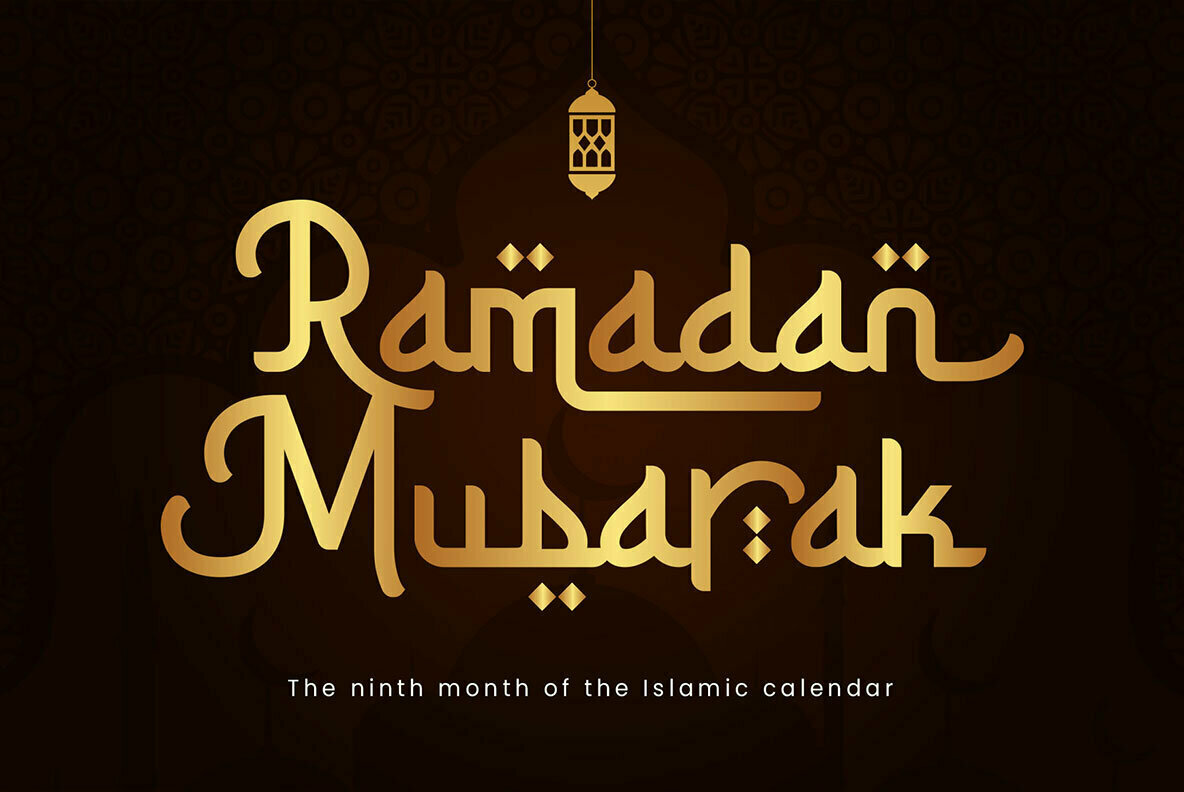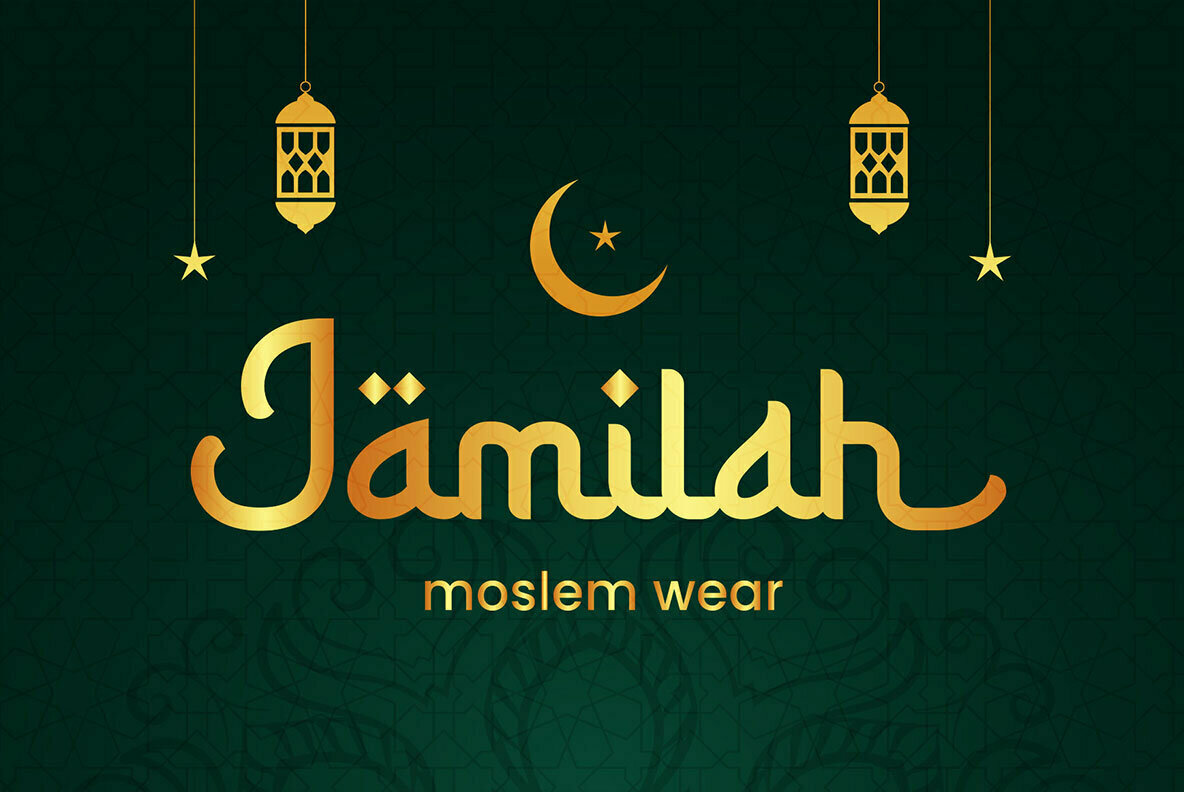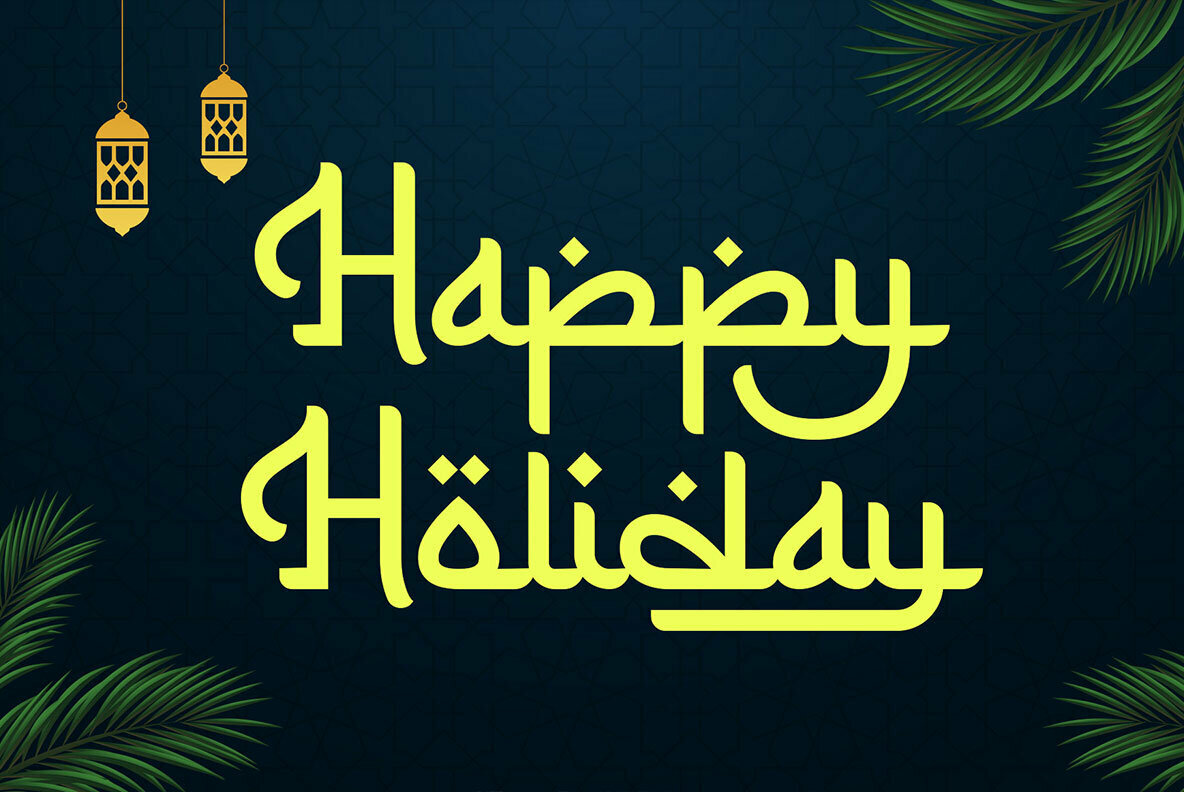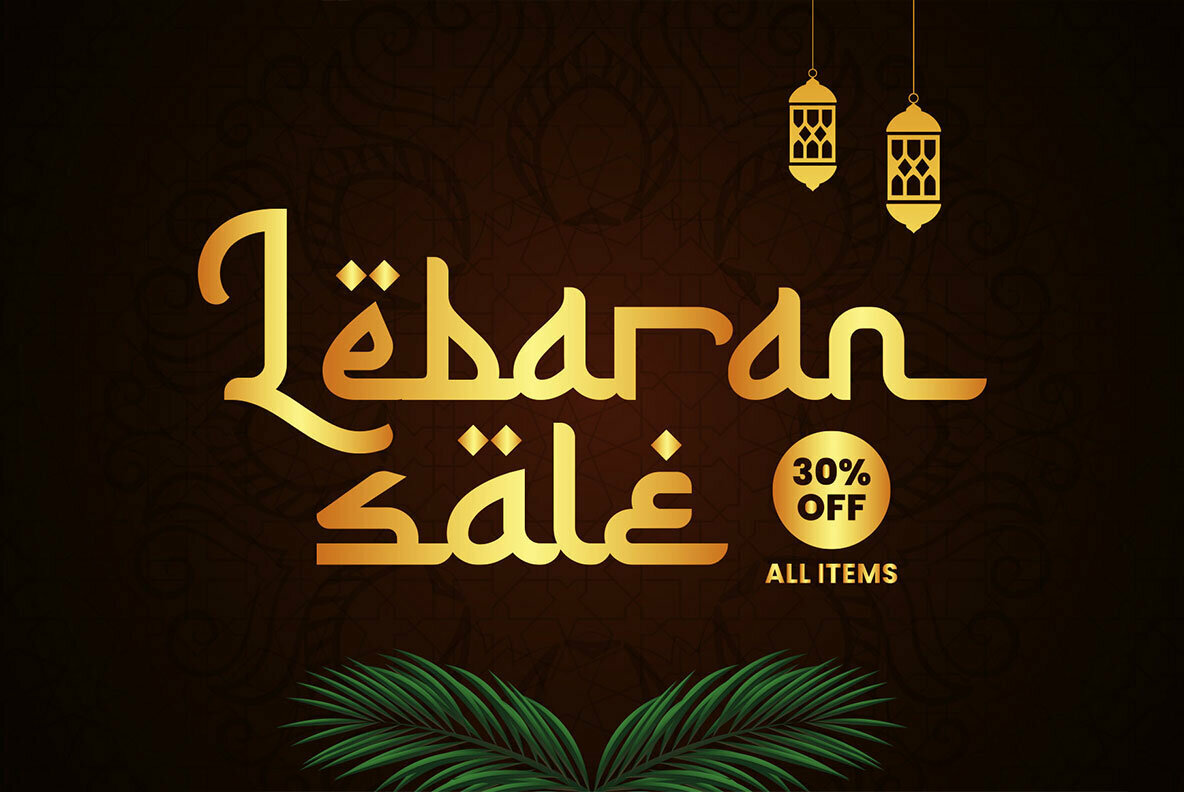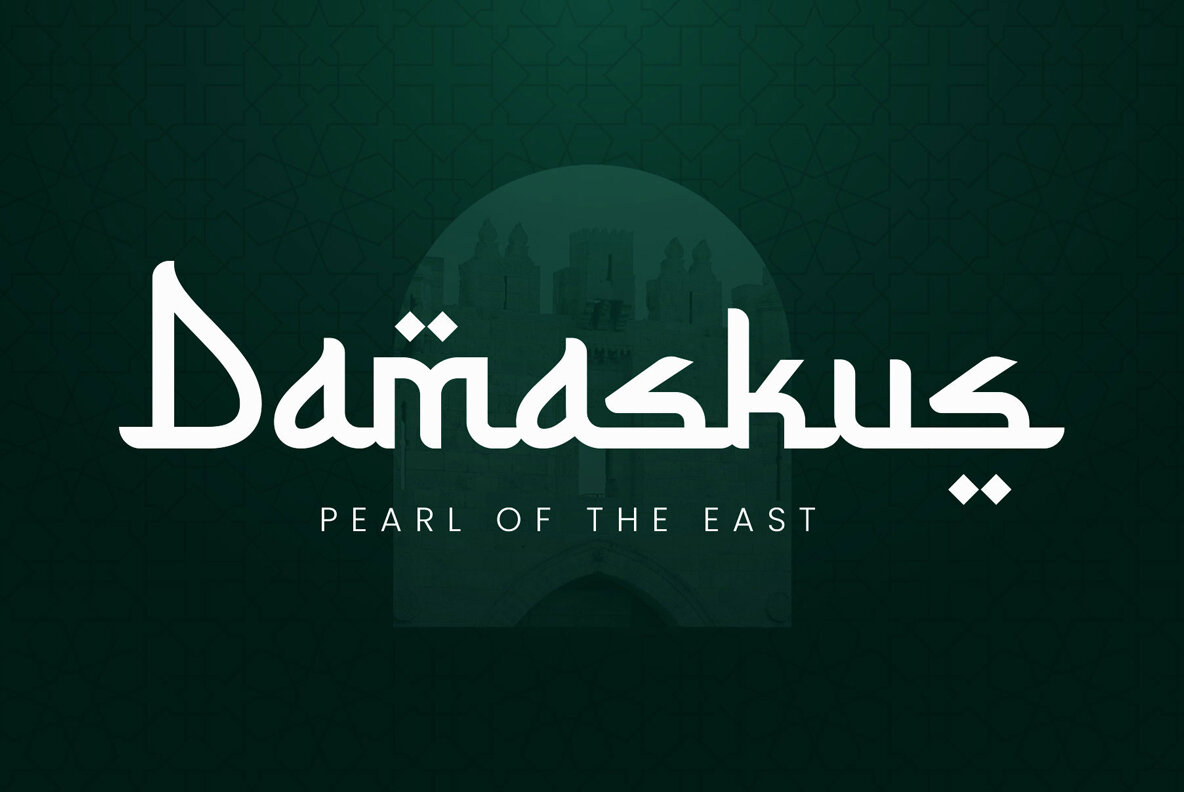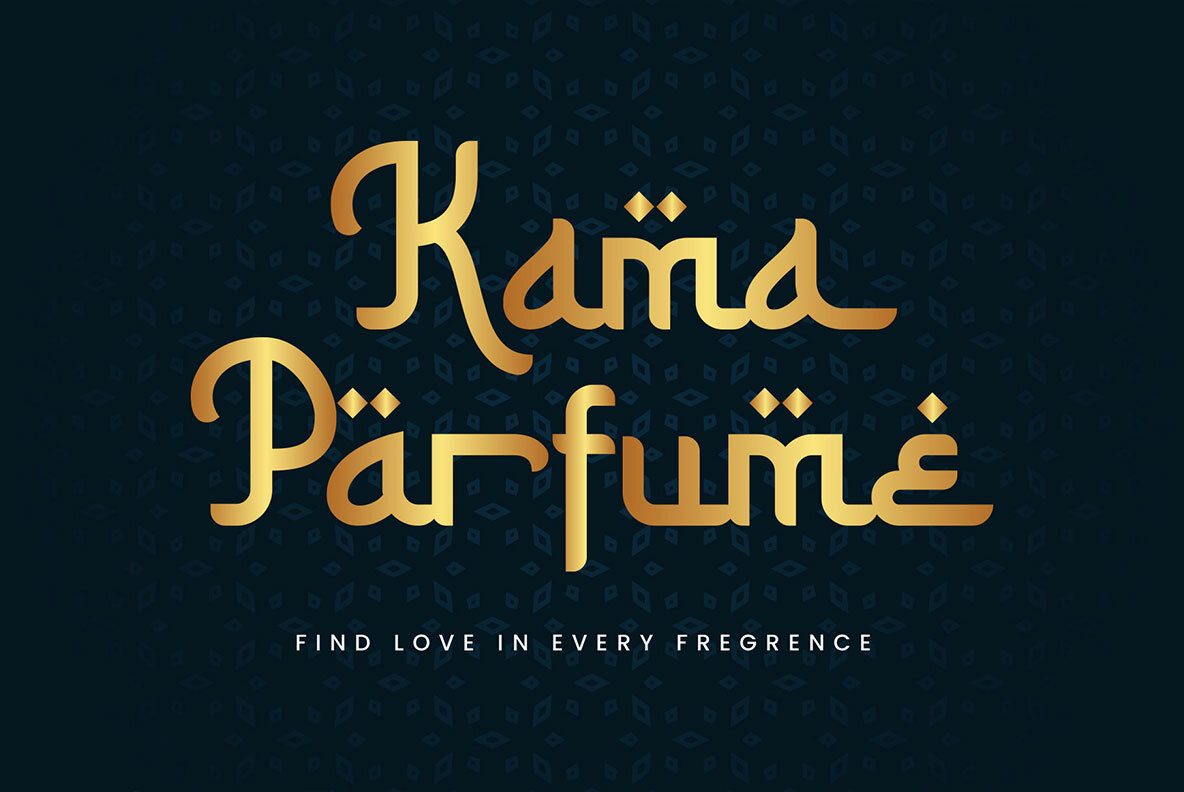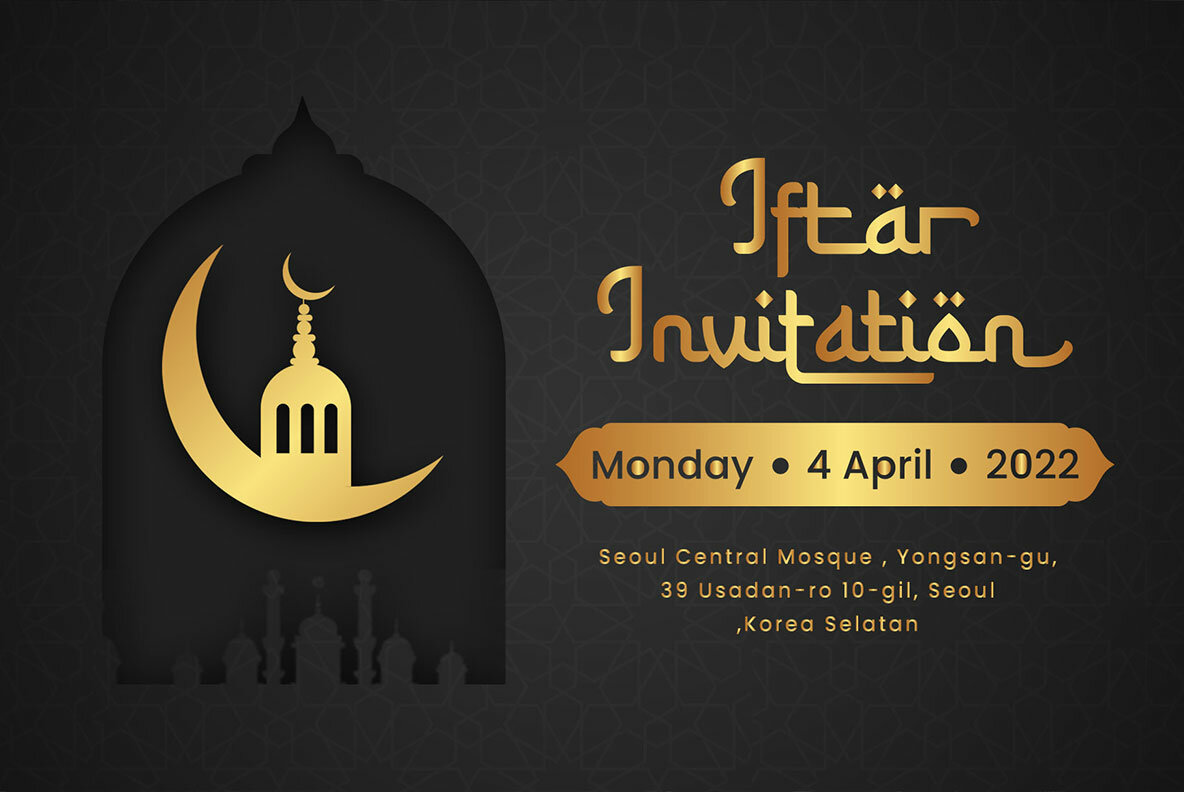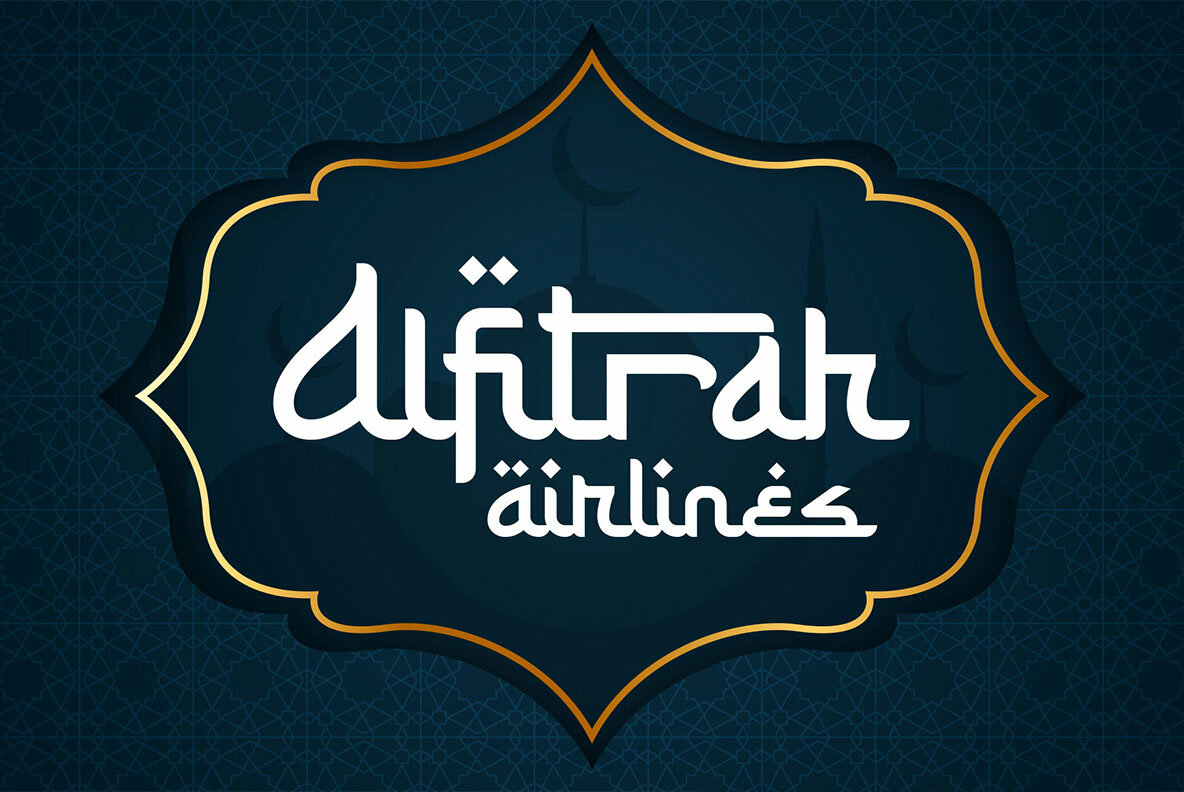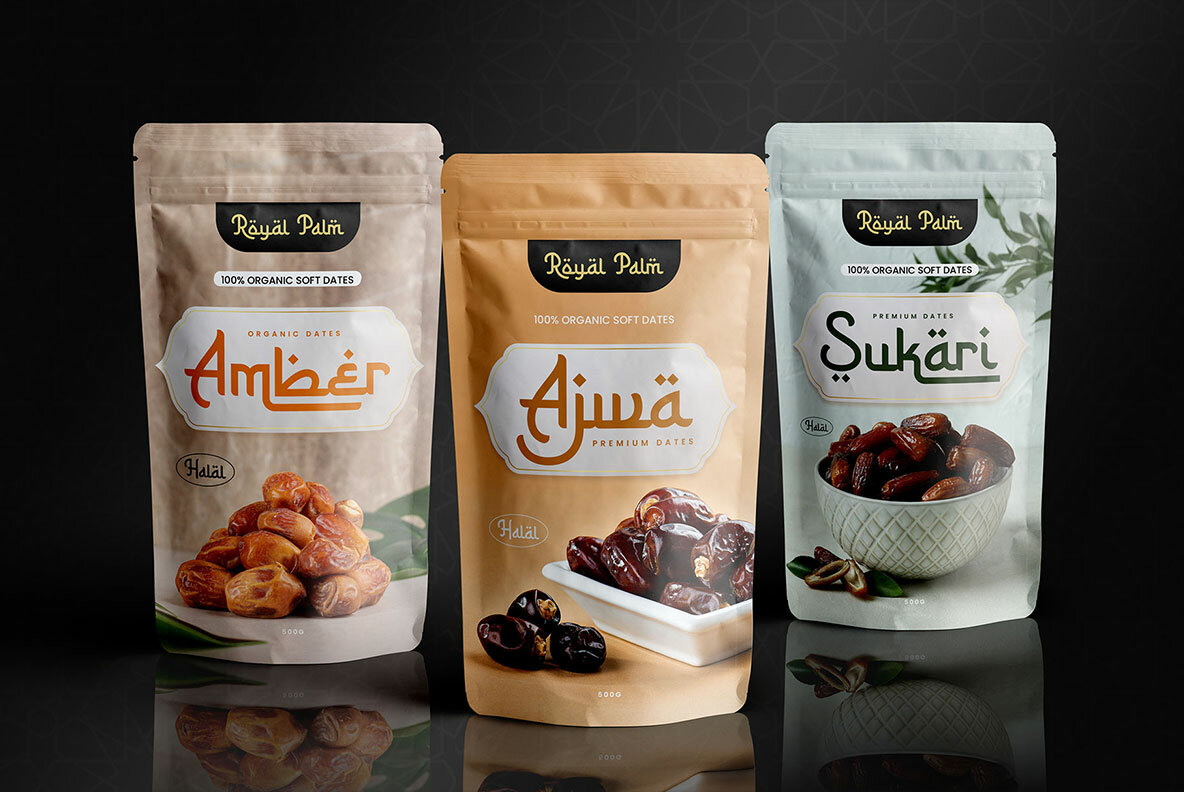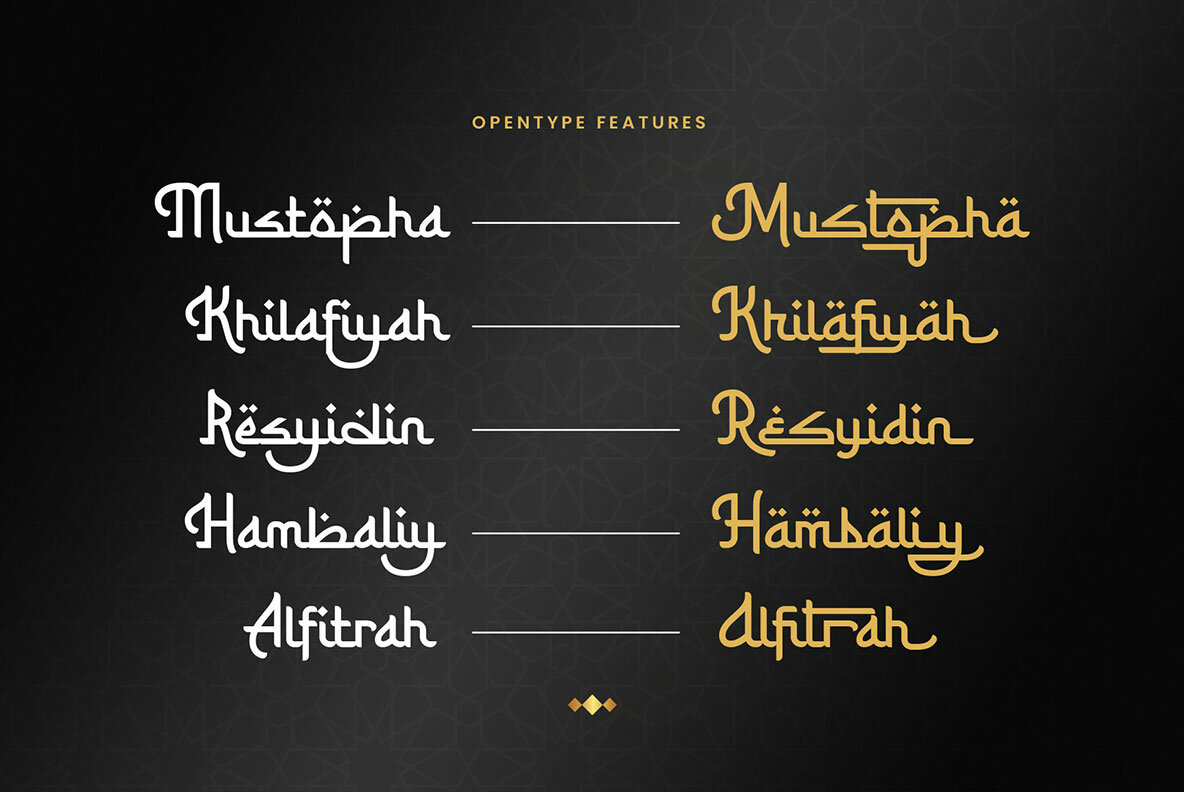
Almalik Font
Almalik Regular
lmalik represents a middle-east feel in a modern touch, with fewer calligraphy shapes, and dynamic swashes. Perfect for many purposes such as fashion, food, packaging, label, logo, logotype, quotes, headline, branding, and more!
This font provides 400+ glyphs including lots of alternates characters that you can apply to get your design looks more attractive!